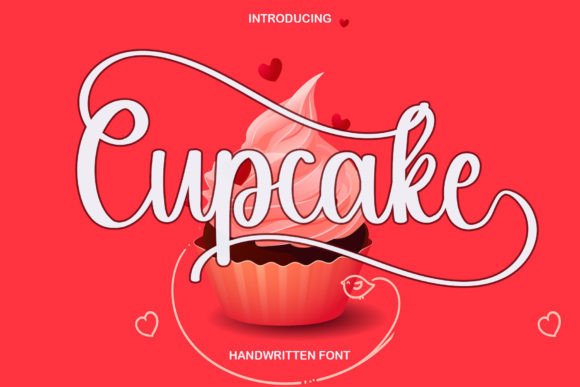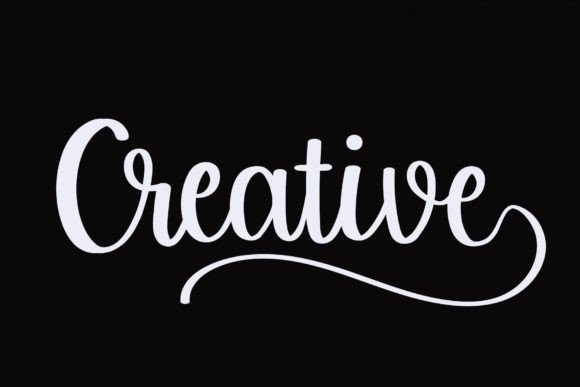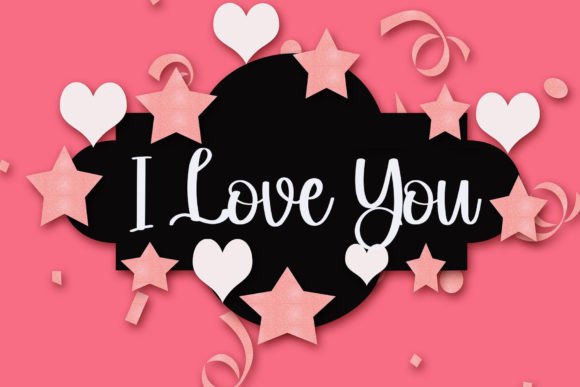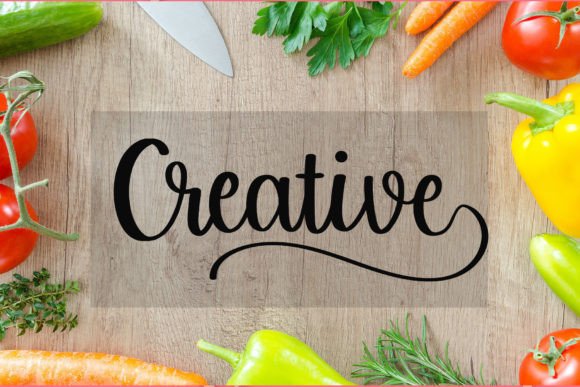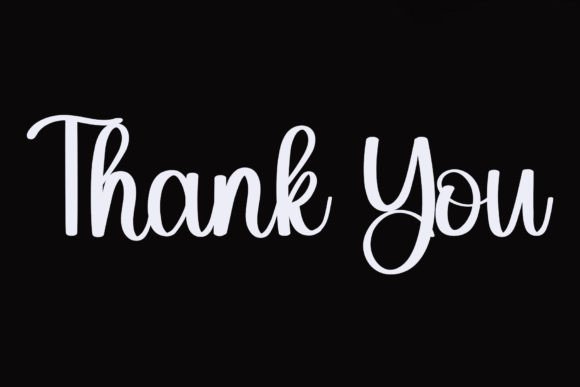
Cupcake Font
A Trendy and Elegant Handwritten Script
Cupcake is a stylish handwritten font that blends contemporary flair with classic calligraphy. Each letter is carefully crafted with smooth lines and refined curves that feel graceful and modern. The timeless design makes Cupcake a versatile choice for projects that need a touch of elegance and personality.
Whether you’re working on professional branding or personal crafts, Cupcake helps your words stand out beautifully.
Cupcake is a flexible font that adapts effortlessly to different design needs. It’s perfect for logos and branding materials that require a sophisticated, handwritten look. The stylish shapes create a memorable identity that feels warm and approachable.
Use Cupcake for wedding invitations, save-the-date cards, and event signage. The classic calligraphy influence makes every piece feel romantic and polished.
This font is also a great choice for product packaging, labels, and handmade goods. The clean, trendy style helps your products look professional and unique.
Cupcake works beautifully for social media graphics, blog headers, and Pinterest pins. No matter where you use it, the font brings a contemporary elegance that captures attention.
The font includes uppercase and lowercase letters, numbers, and punctuation marks. Ligatures are included so your text flows naturally and looks cohesive.
Clear, Refined, and Easy to Read
Even with its decorative script style, Cupcake stays clear and legible in any size. The balanced spacing between letters keeps your text neat and professional, whether you’re designing large headlines or small captions.
Many designers pair Cupcake with a clean sans-serif font to create contrast. Use Cupcake for main titles and the sans-serif for supporting text. This combination guides the reader’s eye and keeps layouts modern and organized.
To highlight Cupcake’s elegant character, use soft backgrounds and neutral color palettes. Shades like ivory, blush, and pale gray let the smooth lines stand out without distractions.
When designing wedding materials or high-end packaging, consider adding watercolor textures or delicate illustrations to enhance the refined feel. For social media posts, keep your layout clean so the font stays the main focus.
Think about the mood you want to create. Cupcake is perfect for designs that should feel romantic, stylish, and timeless.
Cupcake is more than just a handwritten font. It’s a design asset that transforms ordinary words into something special and unforgettable. Its elegant curves and modern shapes bring sophistication to any project.
Adding Cupcake to your font collection gives you a reliable choice for all types of creative work. From branding and packaging to weddings and social media, this font adapts easily to your ideas.